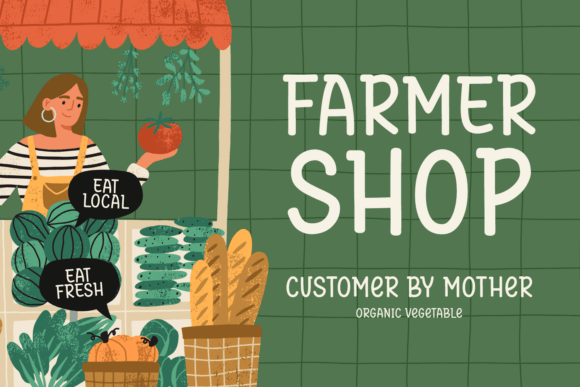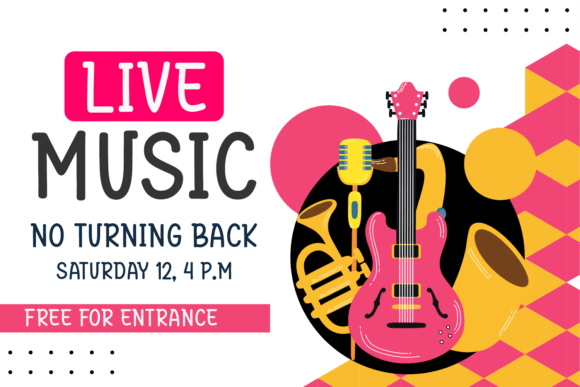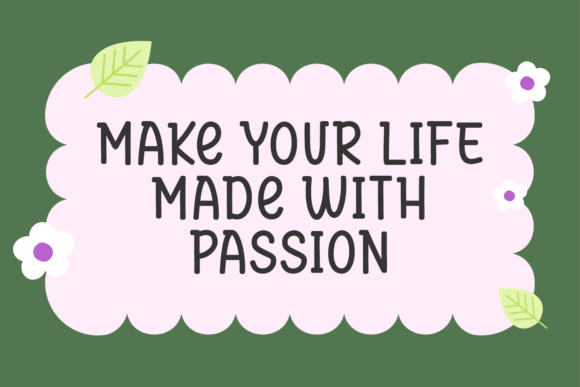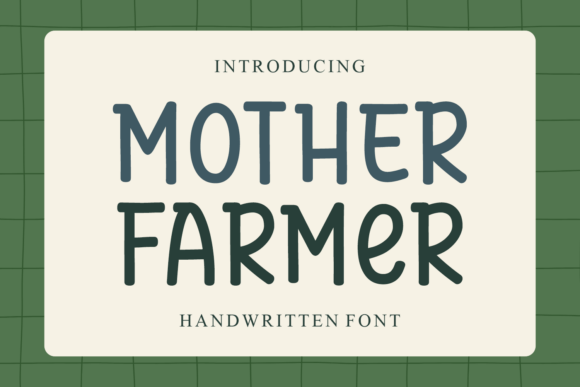
Introduction to Mother Farmer Font
The β€œMother Farmer” font is a handwritten font.
It has a friendly, warm, and authentic look, typical of handwritten fonts The letterforms look a little imperfect in nature, which adds to the personal and organic charm.
Key Features of Mother Farmer Font
Why Choose Mother Farmer Font?